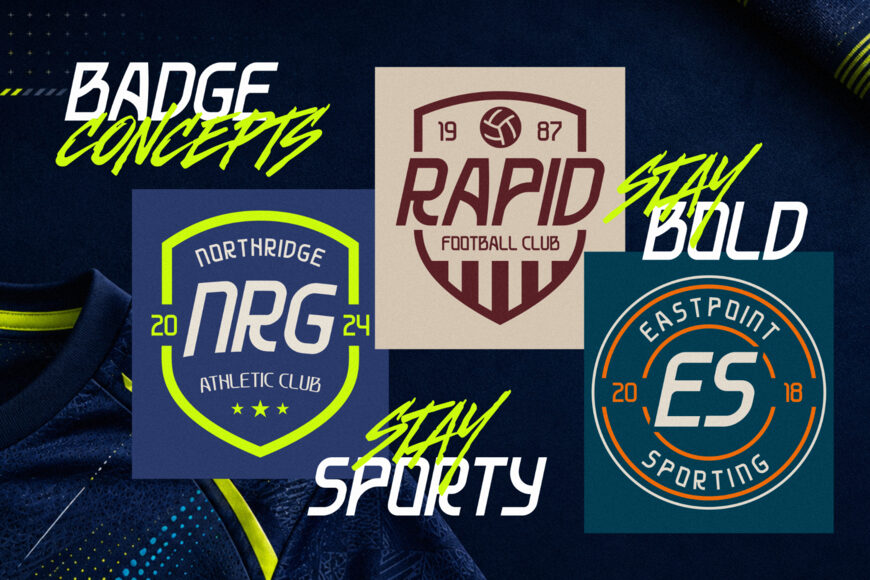
Numbero Font Family
Numbero is an all-caps sporty sans serif font family designed for athletic, energetic, and confident visuals. Its eight coordinated styles—Thin, Regular, Bold, and Outline, each with an Italic counterpart—offer flexibility for headlines, supporting copy, layered layouts, and cohesive branding.
Use varied weights to build hierarchy, italics to add motion, or outlines to create contrast while maintaining a unified look. Ideal for graphic designers, apparel makers, sports brands, creative studios, content creators, and digital product sellers, Numbero suits both commercial designs and expressive promotional artwork.